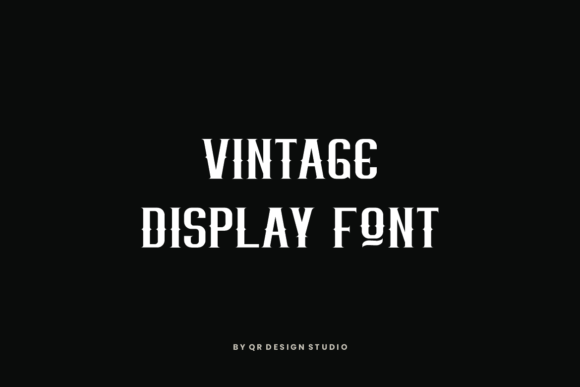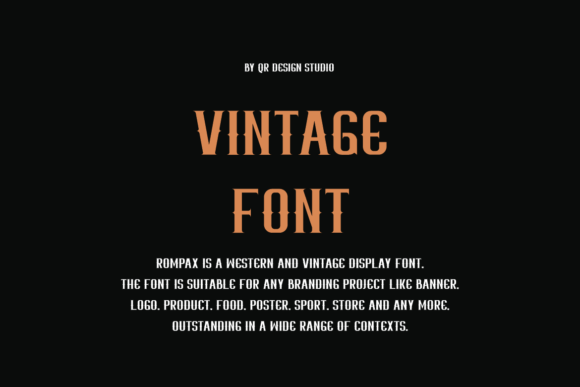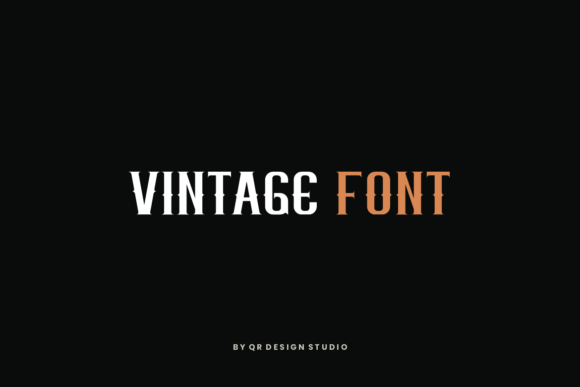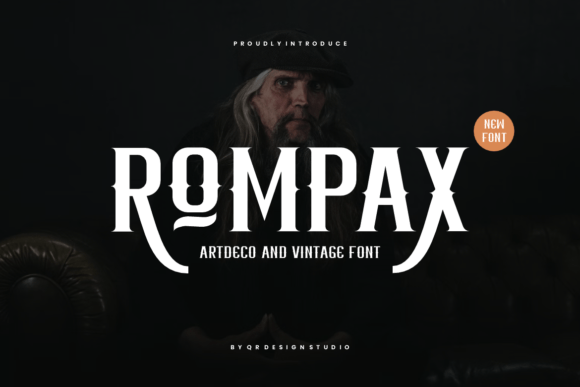
Introduction to Rompax Font
Rompax is a stylish font that combines the bold, elegant look of the Art Deco era with a touch of vintage charm.
Perfect for eye-catching titles and creative designs, it features strong lines and decorative details that give a retro feel to any project .